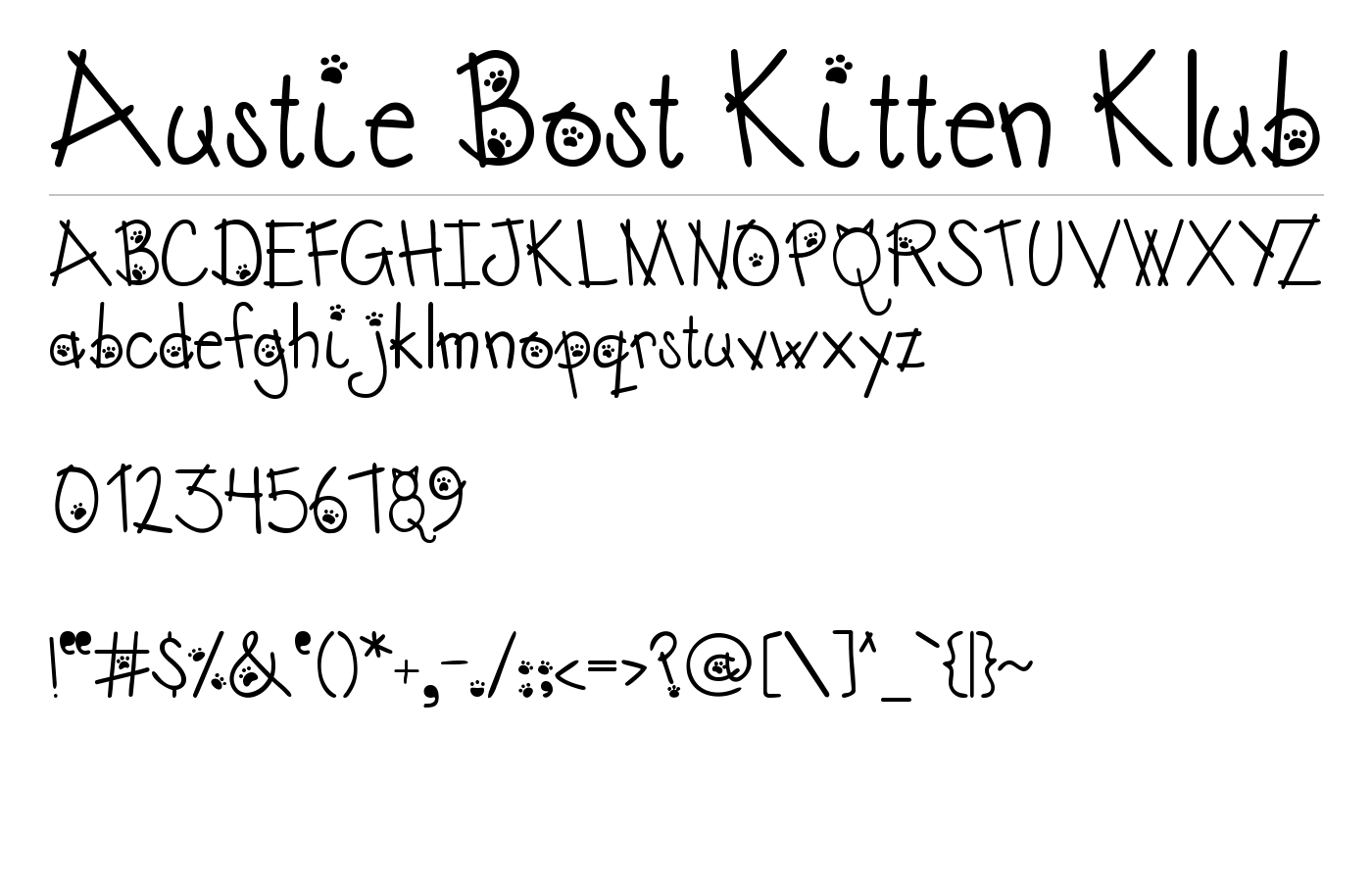
Austie Bost Kitten Klub is a playful, hand-drawn sans serif font featuring whimsical, uneven strokes and fun paw print details, making it perfect for kid-friendly or pet-related designs. Its casual, light weight and irregular letter shapes give it a charming, informal vibe that works well in logos, invitations, and creative projects that want to feel approachable and fun. This font brings a lively, cheerful personality that suits playful branding and casual communication.
Austie Bost Kitten Klub Font
About Austie Bost Kitten Klub Font
| Font family | Austie Bost Kitten Klub Font |
| Designer | Austin Owens |